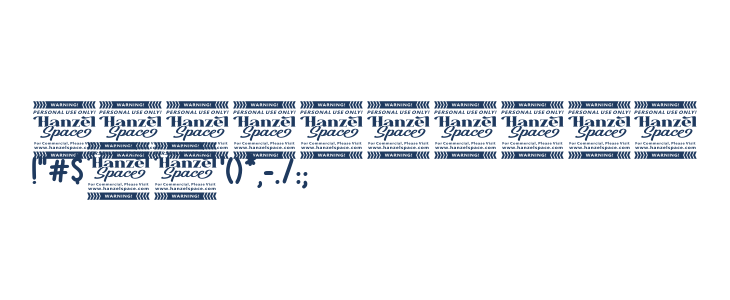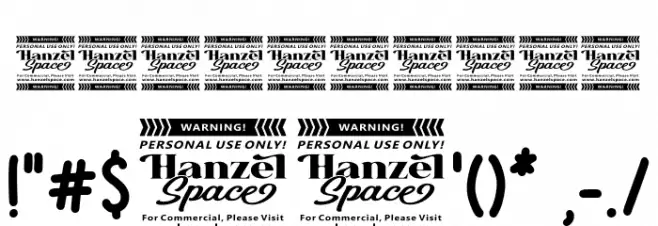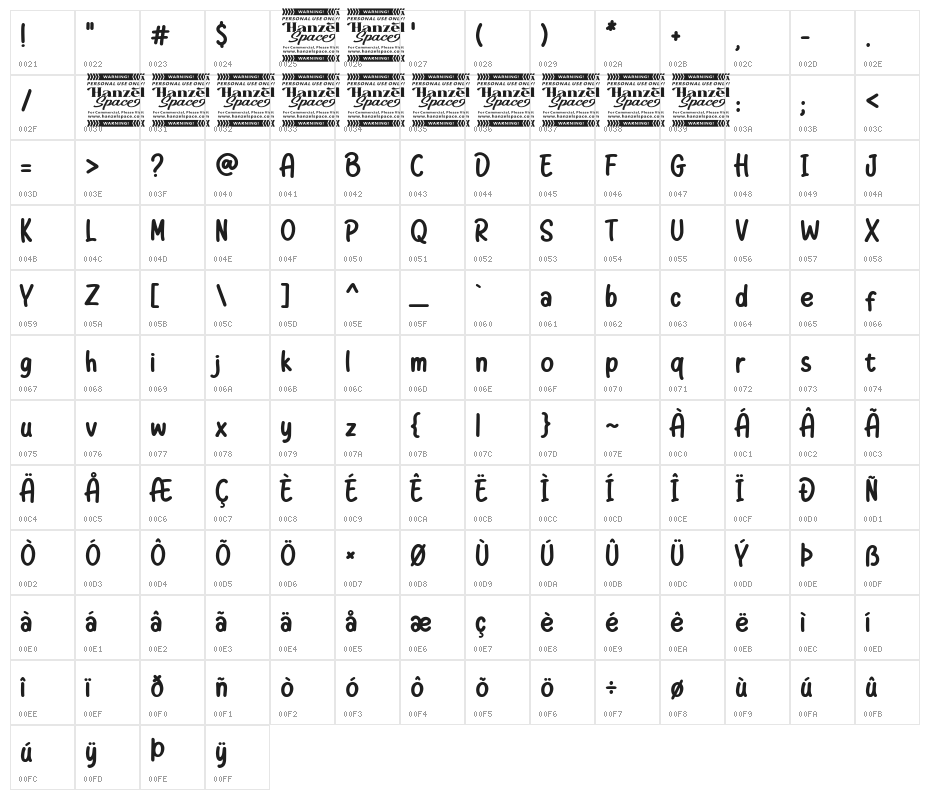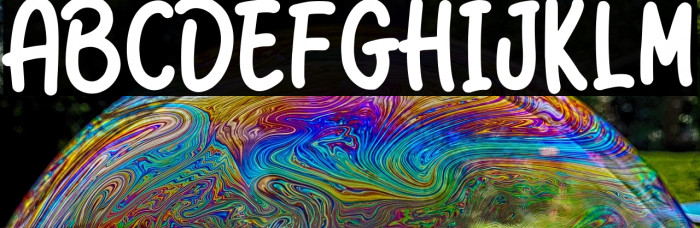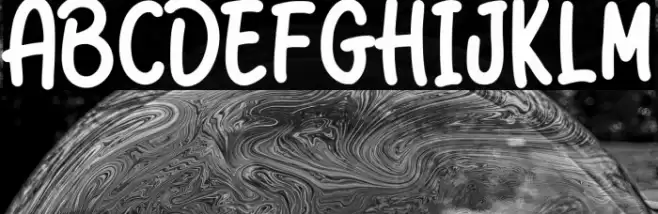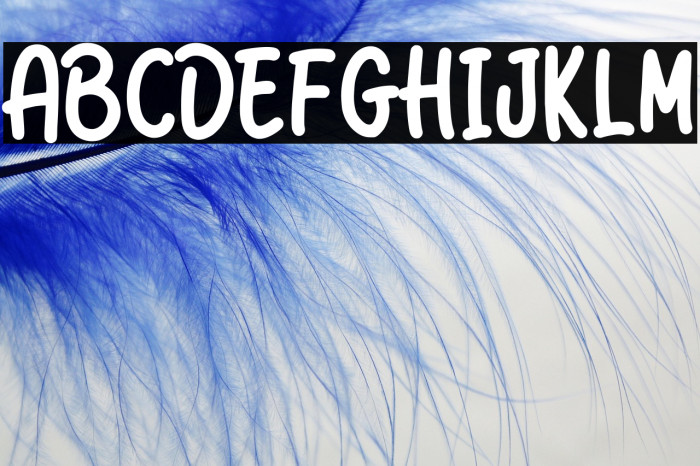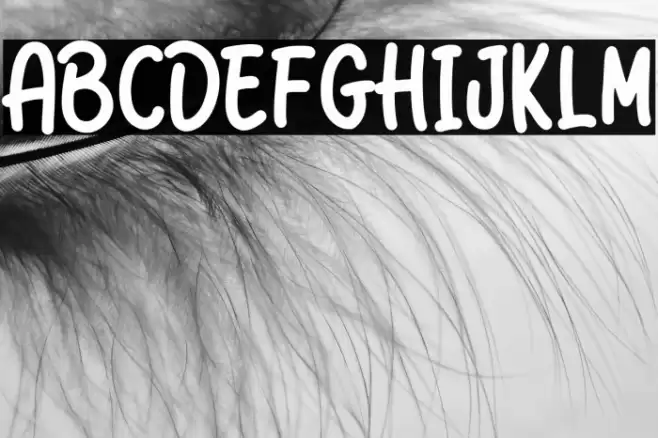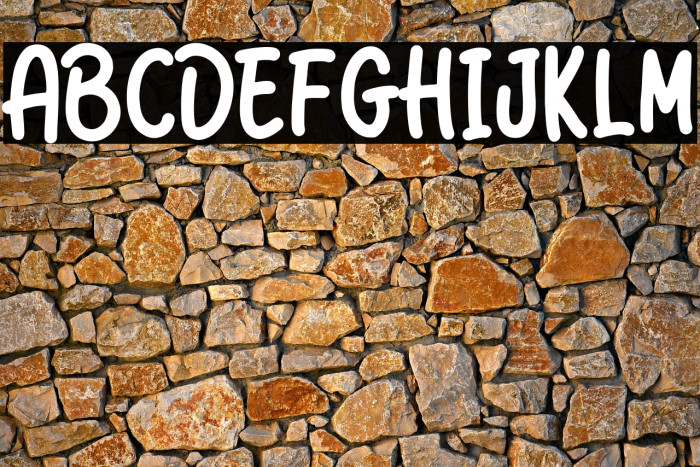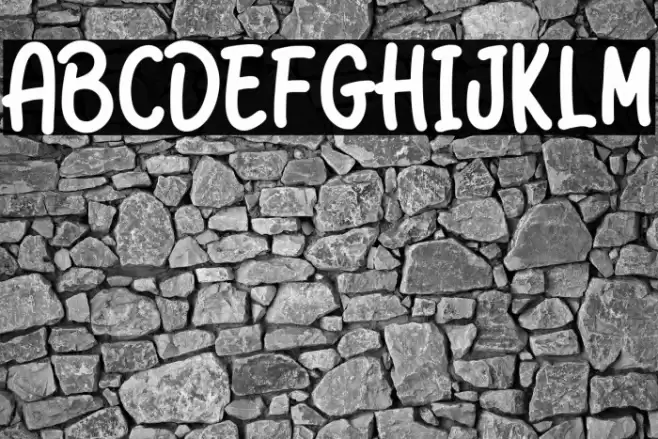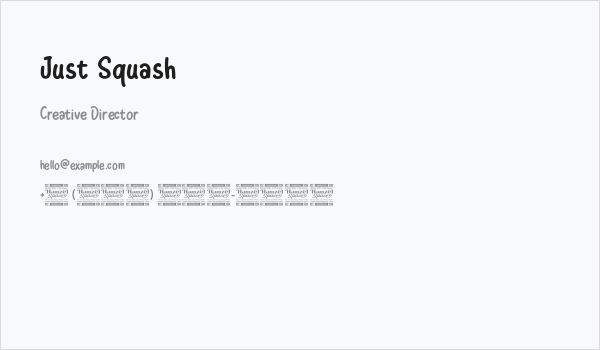
Just Squash Font
Just Squash Description
This font features a playful and bold design with rounded edges and a hand-drawn feel. The uppercase and lowercase letters maintain a consistent style, with a slightly whimsical touch that adds character. The strokes are thick, providing a strong presence, while the rounded terminals soften the overall look. The numbers and special characters follow the same playful aesthetic, making the font versatile for various creative applications. Its unique style is both eye-catching and approachable, suitable for projects that require a friendly and informal tone.
| Proposed Projects | Ideal for children's books, playful branding, greeting cards, and informal posters. |